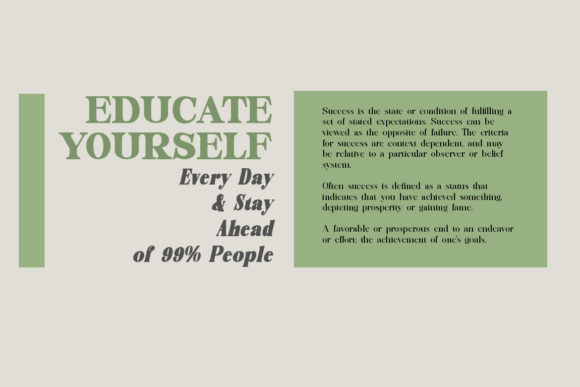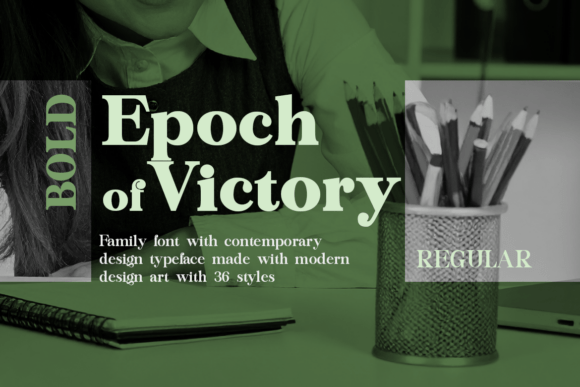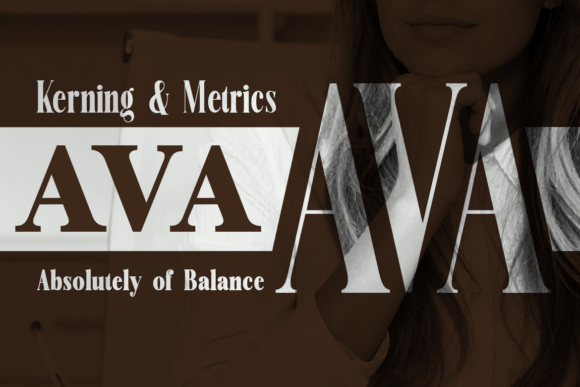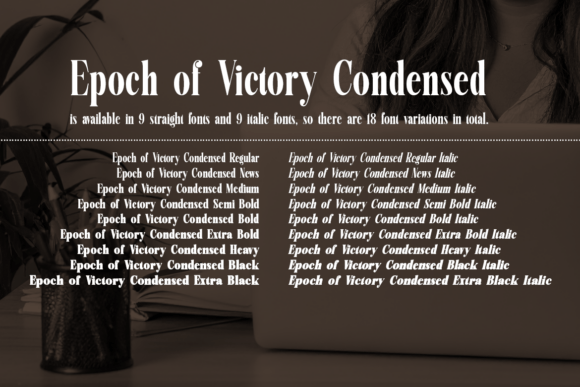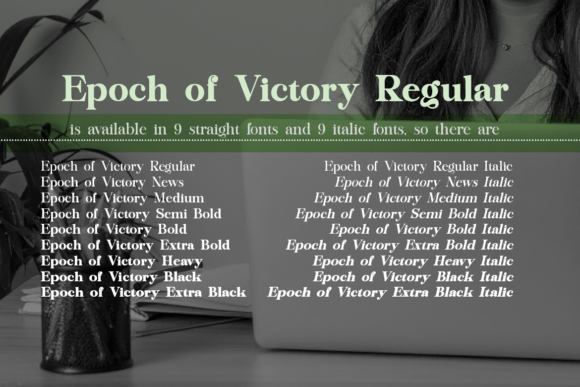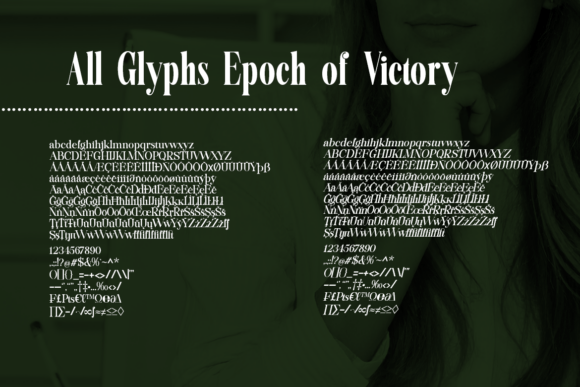
Epoch of Victory Font: Elevate Your Designs with Elegance and Sophistication
In the world of typography, few fonts manage to strike a perfect balance between the familiar and the unexpected. However, the Epoch of Victory font achieves this delicate balance, making it an ideal choice for designers seeking to create elegant and sophisticated design works. This bold and expressive serif family font has become a staple in top fashion magazines and publications, gracing the pages of both print media and web pages with its vintage charm and contemporary flair.
The Unique Characteristics of Epoch of Victory
Epoch of Victory is a variation of a letter with a normal and condensed style, characterized by a soft flexibility in the glyph character section. This unique feature allows the font to exude a sense of elegance and refinement, making it perfect for a wide range of design applications. The font’s serif design adds a touch of sophistication, while its bold and expressive nature ensures that it commands attention.
One of the standout features of Epoch of Victory is its versatility. The font comes in various thicknesses, allowing designers to experiment with different applications and uses. Whether you’re looking to create a stunning logo, a captivating magazine spread, or a striking poster, Epoch of Victory is up to the task. Its flexibility also makes it an excellent choice for branding, headlines, captions, and paragraphs.
Epoch of Victory is a font that is sure to impress designers and crafters alike. Its elegant and sophisticated design makes it an ideal choice for those seeking to create high-end designs that exude luxury and refinement. The font’s readability is also noteworthy, ensuring that your message is conveyed clearly and effectively.
Key Features of Epoch of Victory
- Bold and Expressive Serif Font: Epoch of Victory is a bold and expressive serif family font that is perfect for making a statement.
- Vintage Charm with Contemporary Flair: The font’s vintage charm is perfectly balanced with a contemporary flair, making it suitable for a wide range of design applications.
- Soft Flexibility in Glyph Character Section: The font’s soft flexibility in the glyph character section adds a touch of elegance and refinement.
- Various Thicknesses: Epoch of Victory comes in various thicknesses, allowing designers to experiment with different applications and uses.
- Perfect for Logos, Magazines, and Films: The font’s elegant and sophisticated design makes it perfect for use in logos, magazines, and films.
Tips for Using Epoch of Victory
To get the most out of Epoch of Victory, here are a few tips to keep in mind:
- Use it for Headlines and Titles: Epoch of Victory is perfect for use in headlines and titles, where its bold and expressive nature can be fully appreciated.
- Experiment with Different Thicknesses: Don’t be afraid to experiment with different thicknesses to find the one that works best for your design.
- Pair it with Other Fonts: Epoch of Victory can be paired with other fonts to create a unique and visually appealing design.
In conclusion, Epoch of Victory is a font that is sure to elevate your designs with its elegance and sophistication. Its unique characteristics, versatility, and readability make it an ideal choice for designers and crafters seeking to create high-end designs. Whether you’re looking to create a stunning logo, a captivating magazine spread, or a striking poster, Epoch of Victory is the perfect choice.